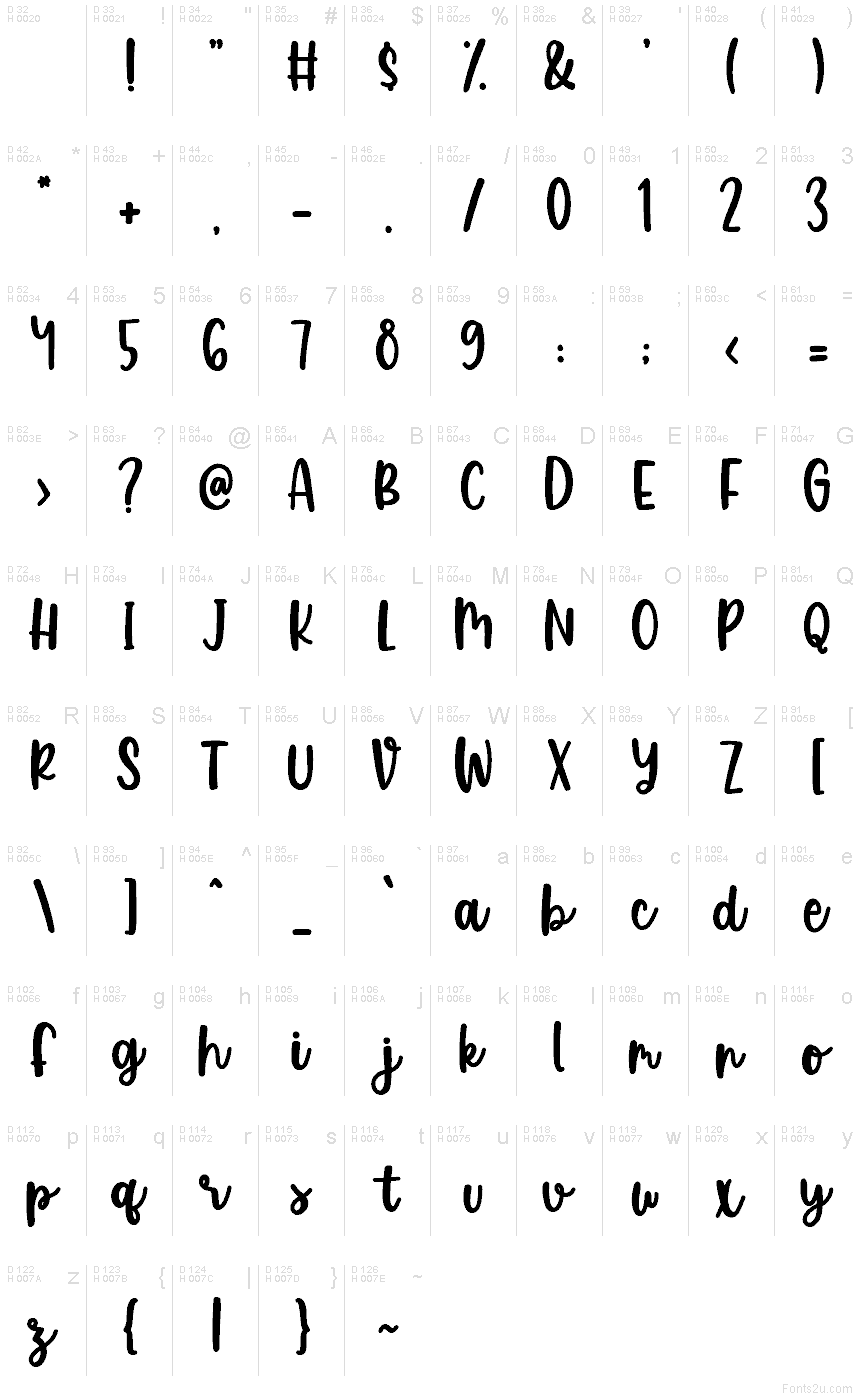
Rainy Vibes
Rainy Vibes font by Dm Letter Studio - Dimas Prasetyo is a free brush script font. It solves the classic brush-lettering dilemma: lively personality without sacrificing readability. The strokes are thick and inky with rounded curves and a gentle bounce, but the spacing stays steady, so words don’t collapse into a mess. It carries a warm, hand-painted feel that still reads clean on screens and small labels.
Using Rainy Vibes, your headlines pop with friendly energy that works beautifully for brand marks, product packaging, cafe menus, event invitations, social posts, stickers, and merch. This free font shines on short phrases and taglines; keep it big and let the rhythm breathe. Simple pairing tip: match it with a neat, low-contrast sans to handle body copy and prices.